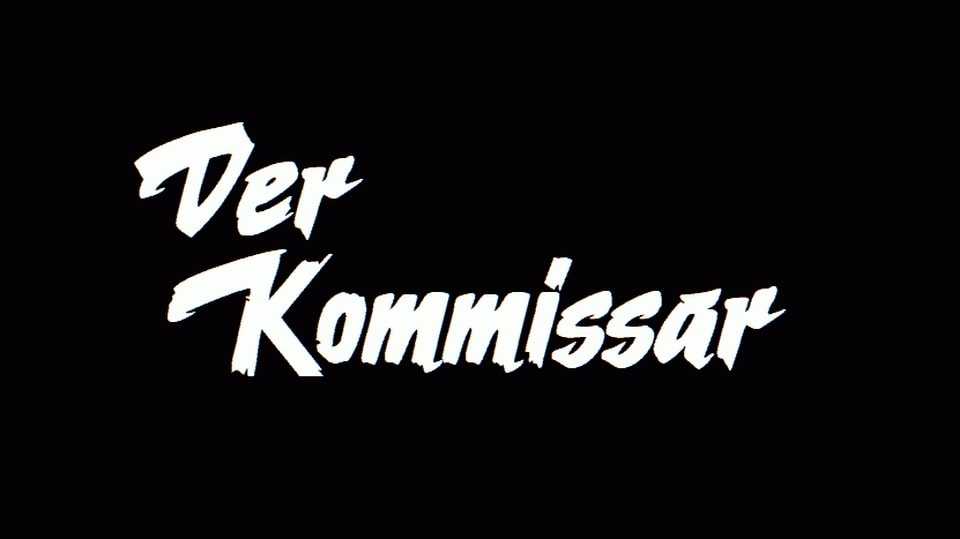
Ode an Erik AH Font › Fontesk – Download Grátis
Download Ode an Erik AH font, a hand crafted typeface with fast, bold brush strokes that originates in the Title graphics of the German TV police series “Der Kommissar”.
Designer: Fontgrube AH